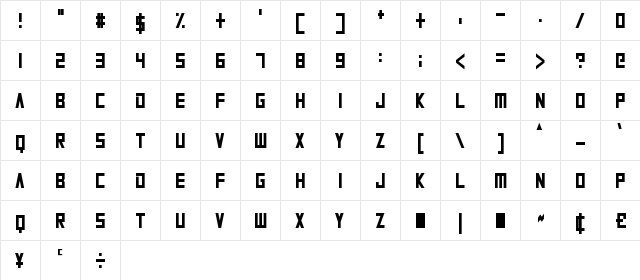
Alien Planet Regular
DesignerDarrell Flood
Design Context for Alien Planet Typeface
Alien Planet takes a measured approach to typography — its balanced proportions and neutral character make it a reliable workhorse for both digital and print work.